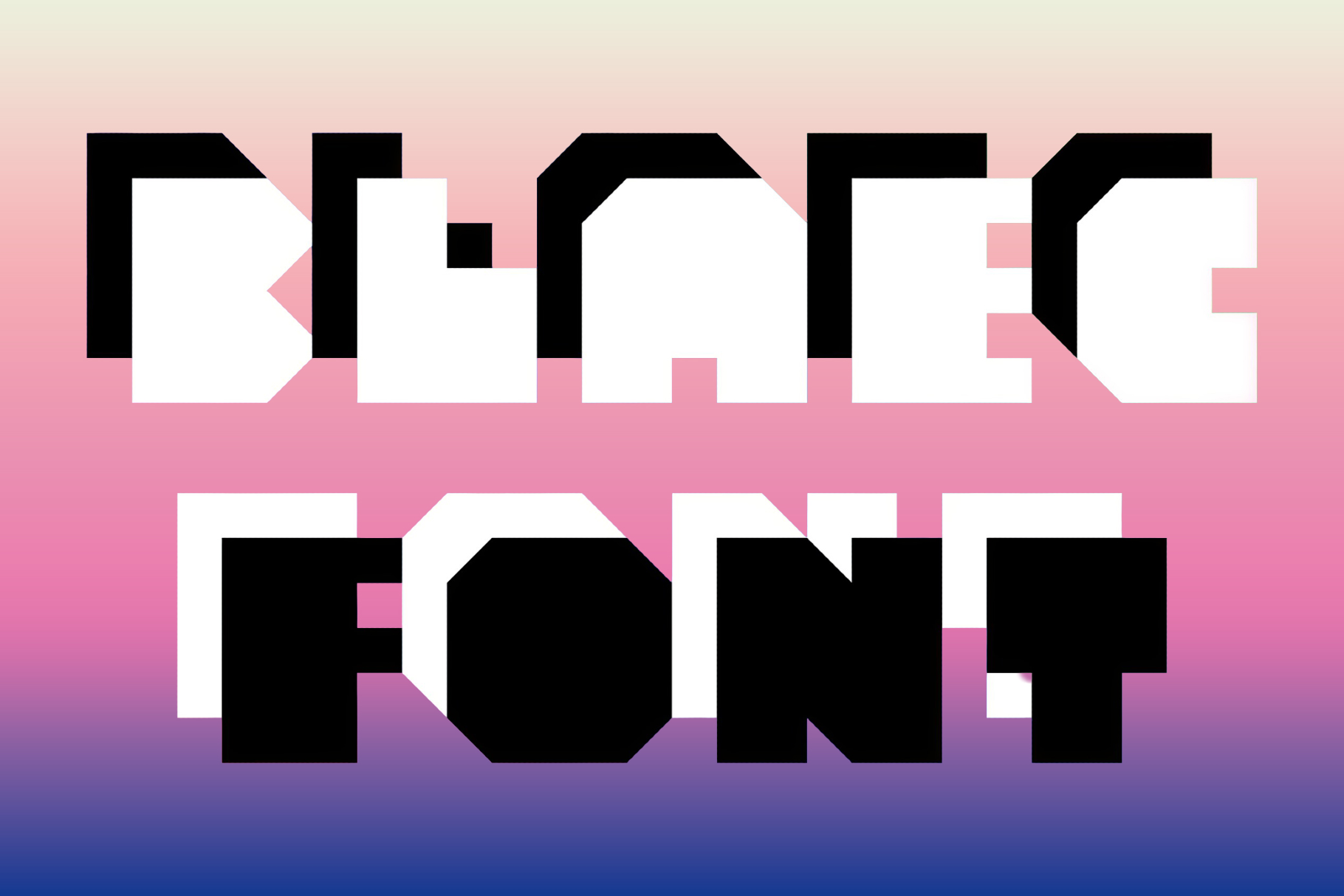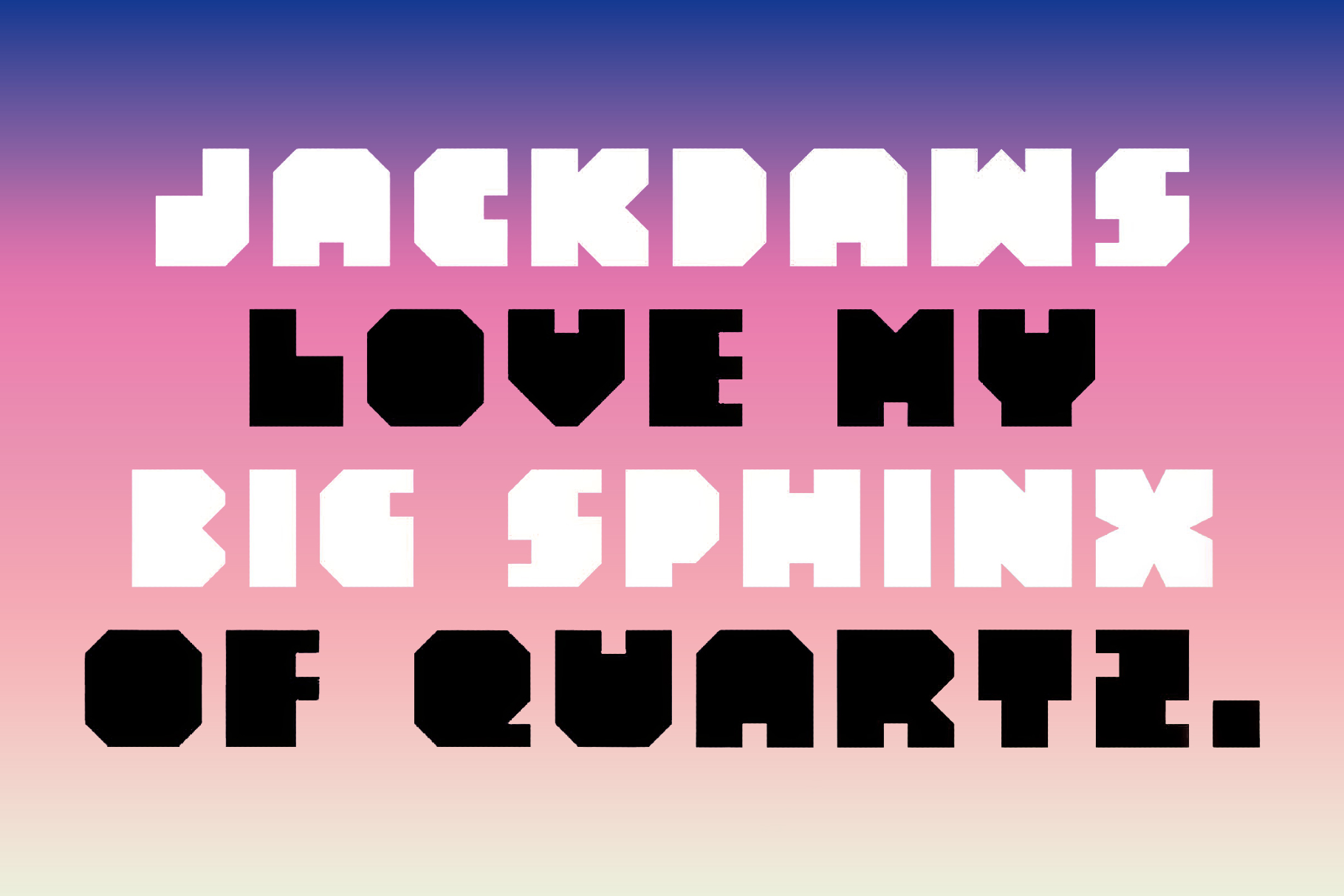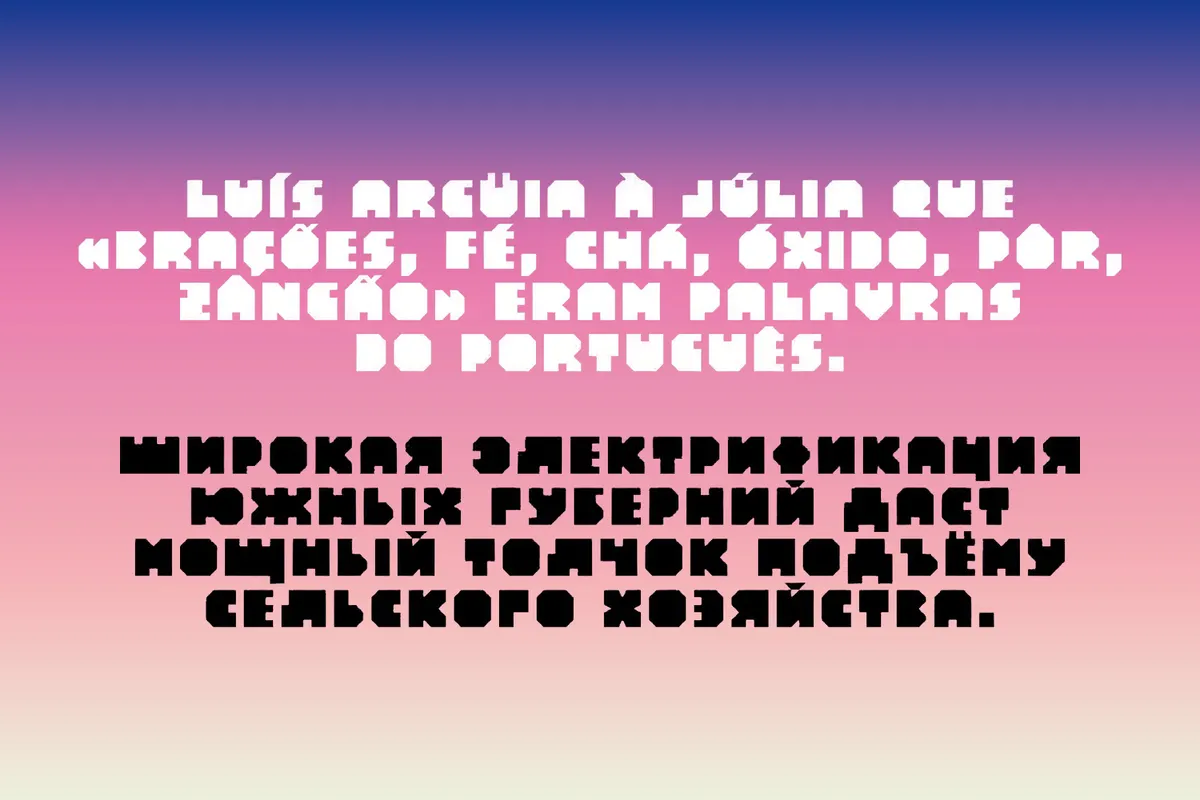
Blaec Font Family
Blaec is a bold geometric font family with chunky, squared forms and a calibrated rhythm that sits between techno lettering and comic-book headlines. It’s a strong fit for tech branding, interface mockups, game titles, poster headlines, app logos, splash screens and menus, album artwork, HUD labels, indie book covers, and motion graphics.
- Two styles: Regular and Italic.
- Uppercase letters, plus numbers, punctuation, and symbols.
- International characters and extra symbols with support across extended Latin, Cyrillic, and Greek scripts, including currency marks and standard typographic extras.
- Extended set of mathematical symbols and metrics.